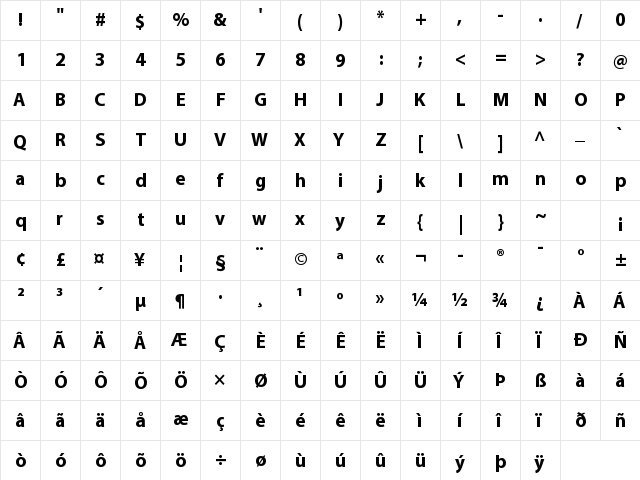
Bahij Myriad Arabic Bold
| Foundry | Tiro Typeworks for Adobe Systems Incorporated. |
| Designer | Tim Holloway (Arabic) and Robert Slimbach (Latin) |
Design Context for Bahij Myriad Arabic Typeface
Bahij Myriad Arabic takes a measured approach to typography — its balanced proportions and neutral character make it a reliable workhorse for both digital and print work. Its bold stroke weight gives it real presence on the page.